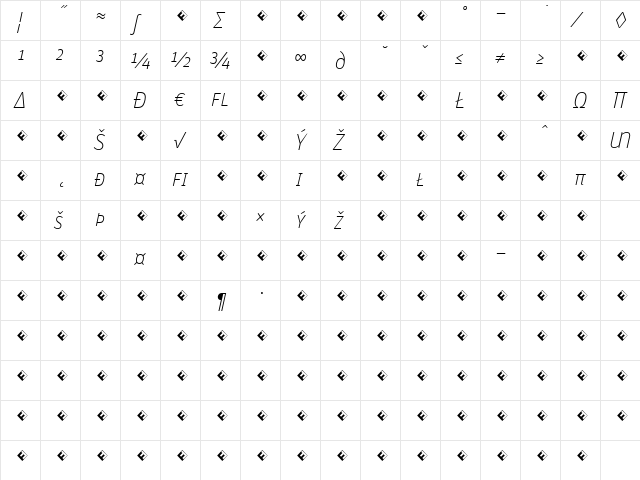
Unit-ThinSCItalicExpert Regular Font Preview
| Foundry | Erik Spiekermann, Christian Schwartz; published by FontShop International for the FontFont Library |
| Designer | Erik Spiekermann, Christian Schwartz |
Design Context for Unit-ThinSCItalicExpert Typeface
Unit-ThinSCItalicExpert takes a measured approach to typography — its balanced proportions and neutral character make it a reliable workhorse for both digital and print work. Its italic angle brings a sense of urgency and motion to the letterforms. The delicate stroke weight brings airiness and refinement to layouts.
Pro Tip: Try Unit-ThinSCItalicExpert for annotation and caption copy alongside an upright companion — the contrast in angle creates a dynamic but ordered typographic system.